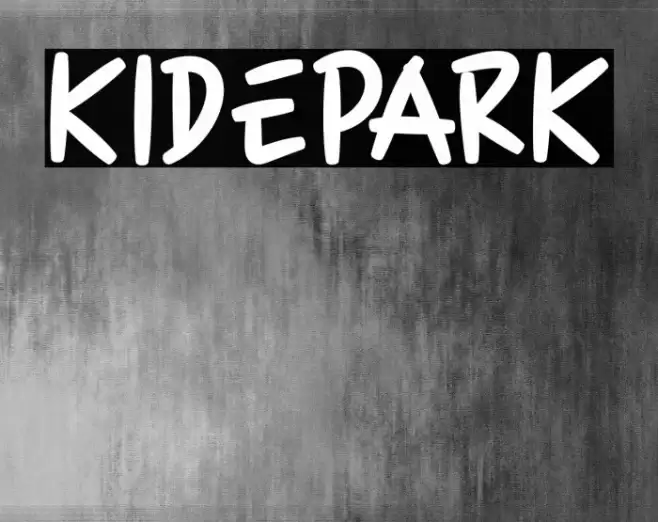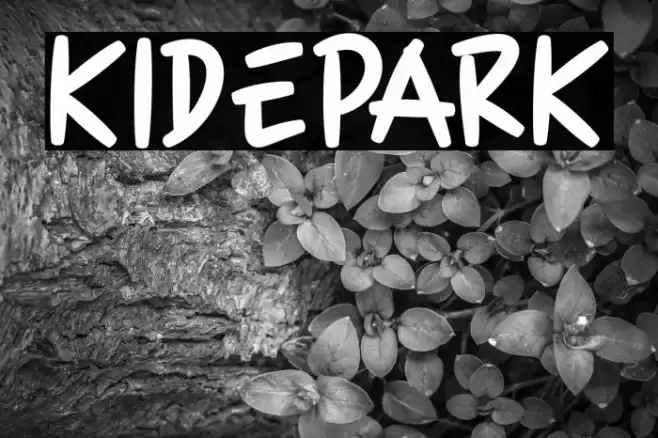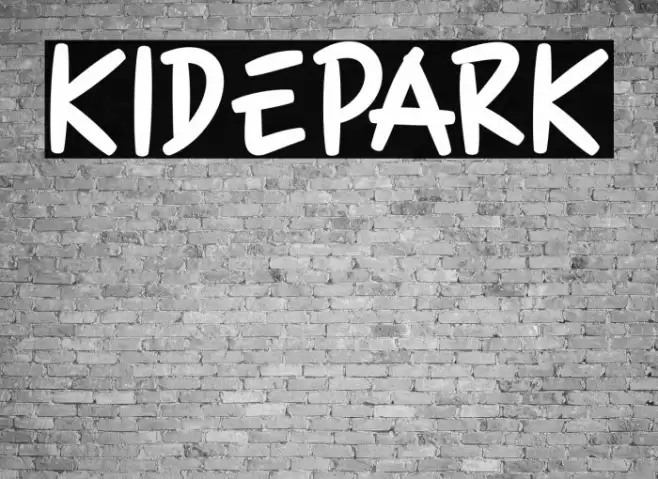
KIDEPARK Font
KIDEPARK Description
This playful and energetic font features bold, rounded characters with a handwritten style that exudes a sense of fun and creativity. The uppercase letters are slightly slanted, adding a dynamic feel, while the consistent stroke width maintains readability. The font's casual and friendly appearance makes it ideal for projects aimed at children or those requiring a lighthearted touch. Its smooth curves and informal style are perfect for conveying a sense of approachability and warmth.
A bold, handwritten font with a playful and energetic style from Cartoon fonts.
- Proposed Projects: Ideal for children's books, playful branding, posters, and greeting cards.
- Overall Style: Playful